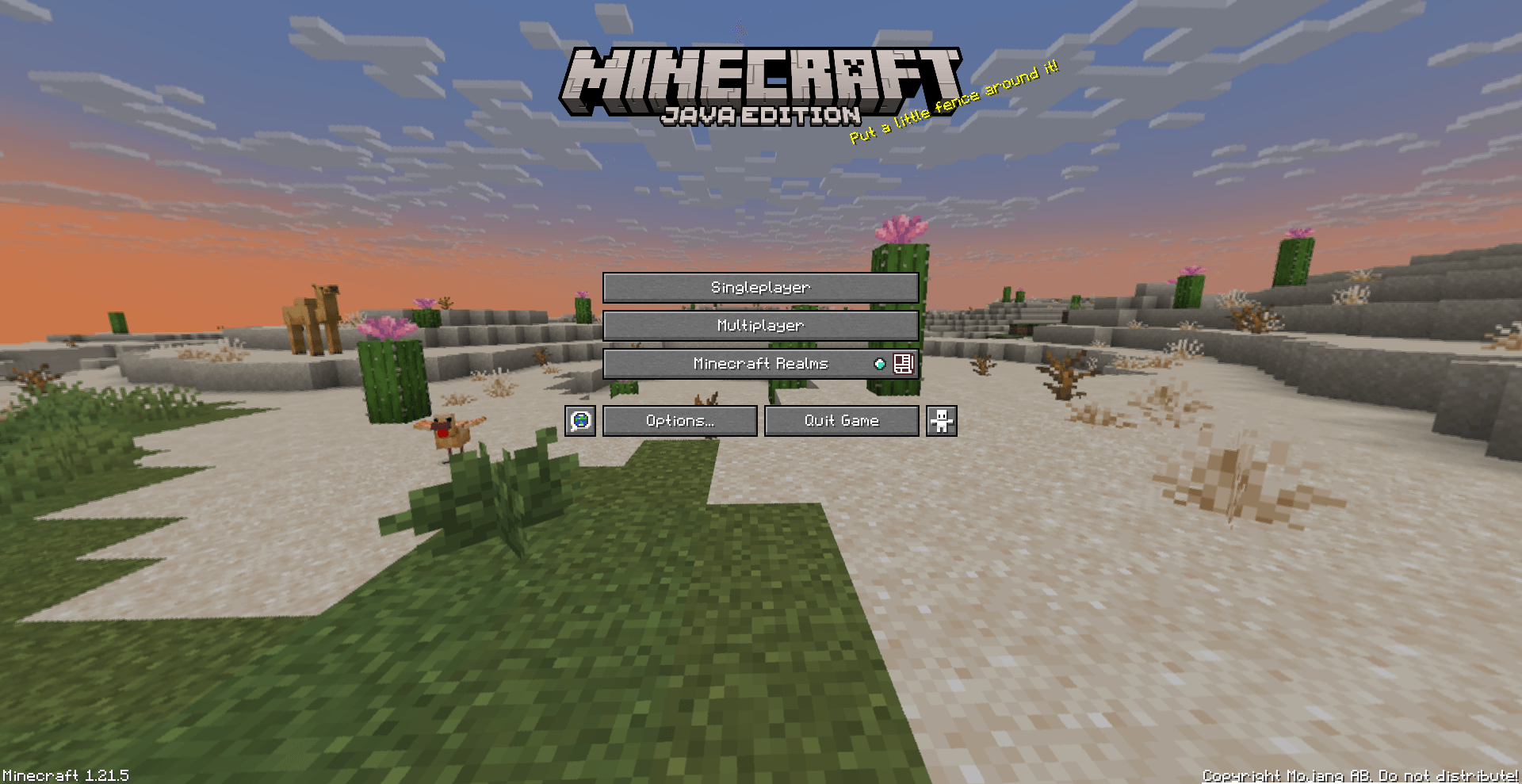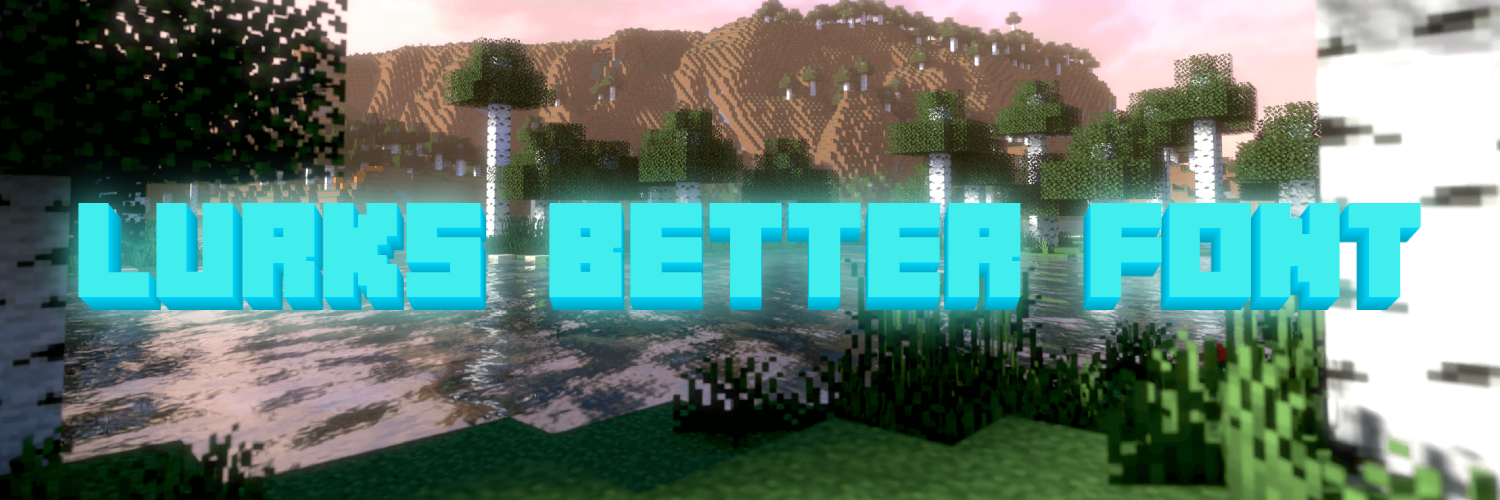
Lurk's Better Font
A Minecraft resource pack that transforms the game’s default font into a new design, giving menus, chat, and text a distinct look, while enhancing readability and adding a personalized touch to the overall gameplay experience.